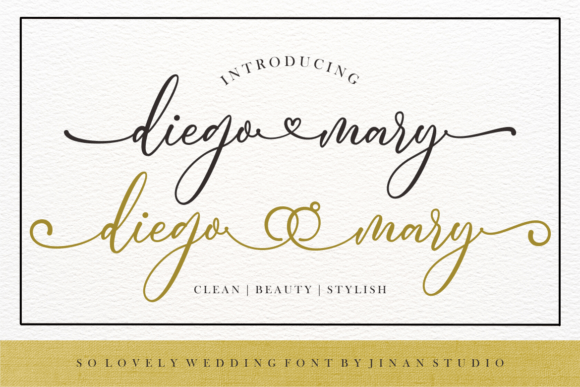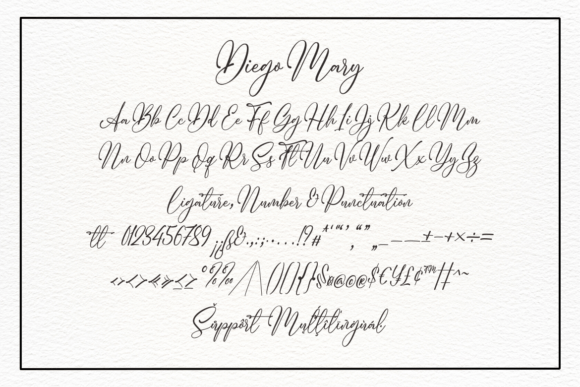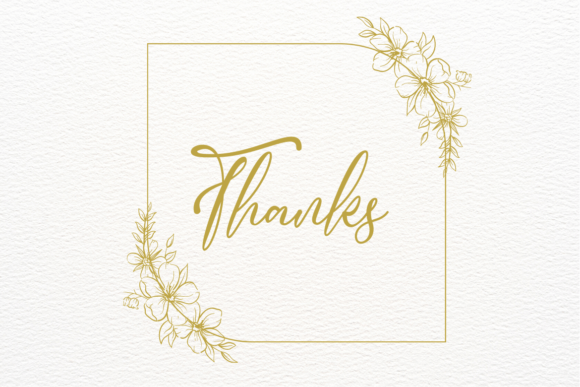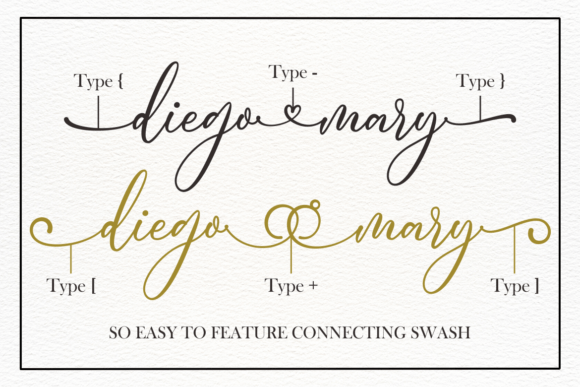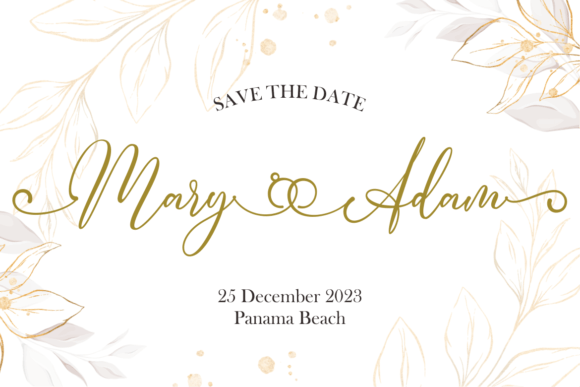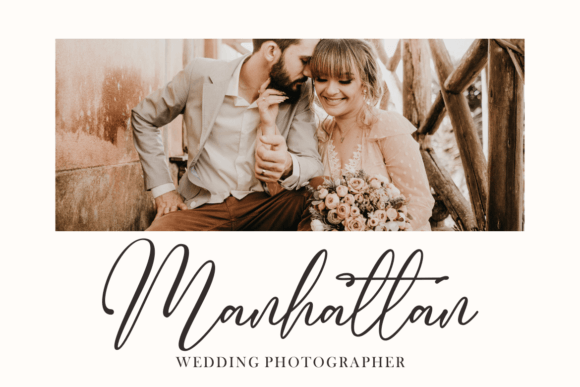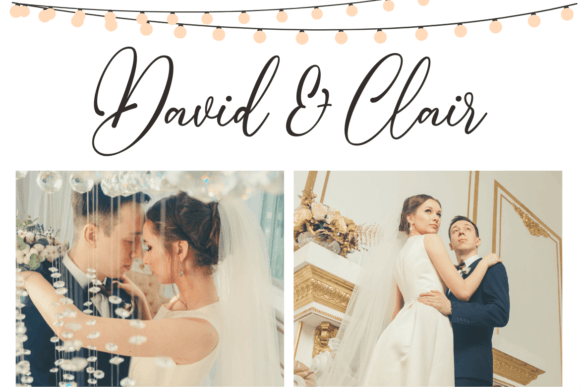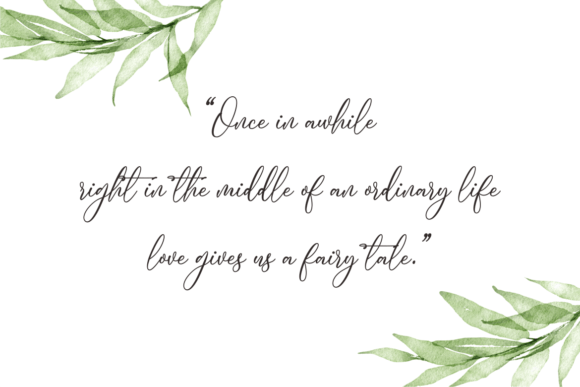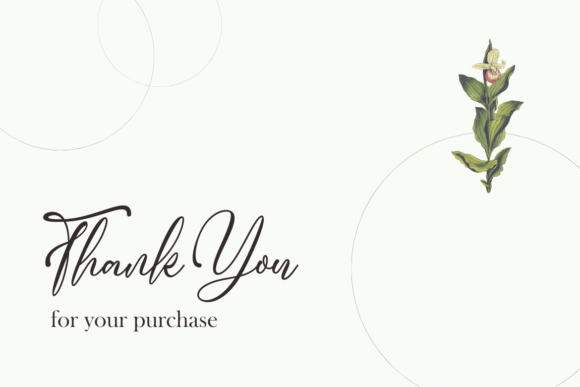
Diego Mary Font
About Diego Mary Font
Diego Mary is a font that effortlessly combines style, beauty, and modernity, making it a versatile choice for a broad range of applications. Whether you’re designing greeting cards, wedding invitations, or eye-catching headlines, Diego Mary promises to infuse a romantic and elegant touch into every aspect of your creative endeavors.
This font’s aesthetic allure is particularly well-suited for projects that demand a touch of sophistication and charm. Imagine the impact it can have on greeting cards, where each stroke carries a hint of romance, or on wedding cards, where it transforms the written word into a visual celebration of love. The elegance of Diego Mary extends seamlessly to headlines, where it captivates audiences with its stylish and contemporary appeal.
What sets Diego Mary apart is its PUA encoding, a feature that enhances user accessibility. With this encoding, you can effortlessly access all the intricate glyphs and swashes that make Diego Mary truly unique. This accessibility ensures that every designer, regardless of expertise, can unlock the full potential of this font, adding a personalized and artistic flair to their creations.
In essence, Diego Mary is more than just a font; it’s a romantic storyteller and a contemporary design companion. Its ability to convey style and beauty makes it an ideal choice for those seeking to elevate their projects with a touch of modern elegance. Embrace the versatility of Diego Mary and let its handwritten charm breathe life into your designs, ensuring they leave a lasting impression with their romantic and timeless appeal.